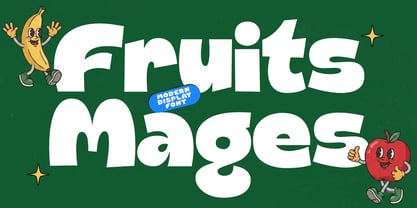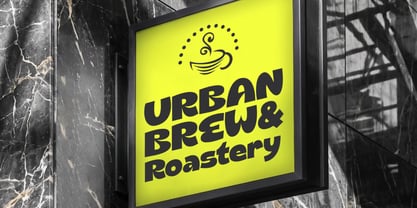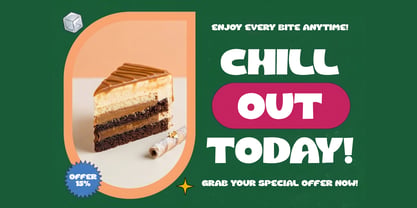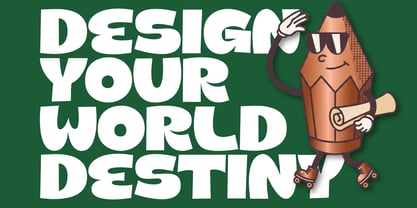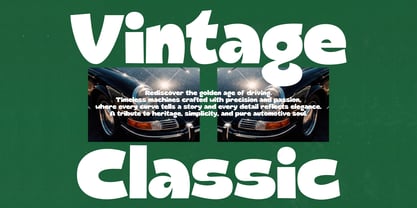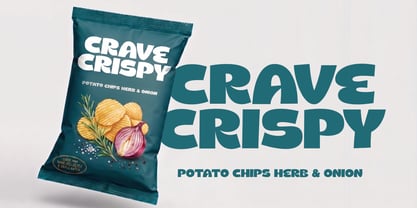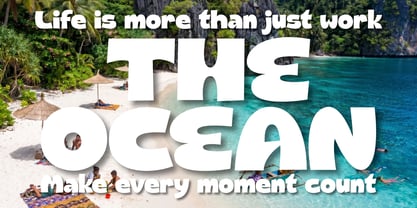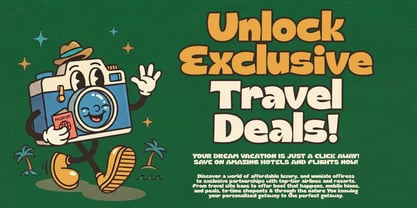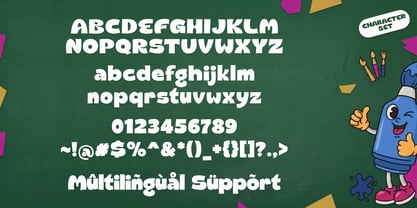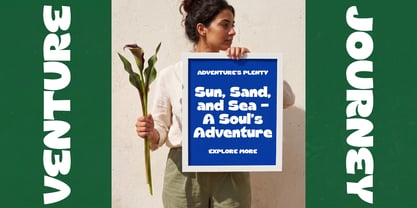
Fruits Mages
La familia tipográfica Fruits Mages fue diseñada por Saiful Anwar y publicada por Sealoung. Fruits Mages contiene 1 estilos. Más información sobre esta familia
Fruits Mages – Modern Playful Display Font
Fruits Mages is a modern playful display font designed to bring a fresh, fun, and energetic feel to any creative project. With its bold shapes, smooth curves, and unique character forms, this typeface delivers a strong visual impact while maintaining a friendly and approachable style.
Inspired by cheerful themes and vibrant visuals, Fruits Mages is perfect for projects that require a lively and eye-catching appearance. Its rounded structure and balanced proportions make it highly readable while still standing out in large display use.
This font works beautifully for branding, packaging, logos, posters, social media graphics, and creative design projects that need a touch of fun and personality.
Features:
• Uppercase & Lowercase
• Numbers & Punctuation
• Multilingual Support
• Smooth & Bold Letterforms
• Unique Playful Style
Fruits Mages is the perfect choice for designers looking to create bold, cheerful, and memorable visuals.